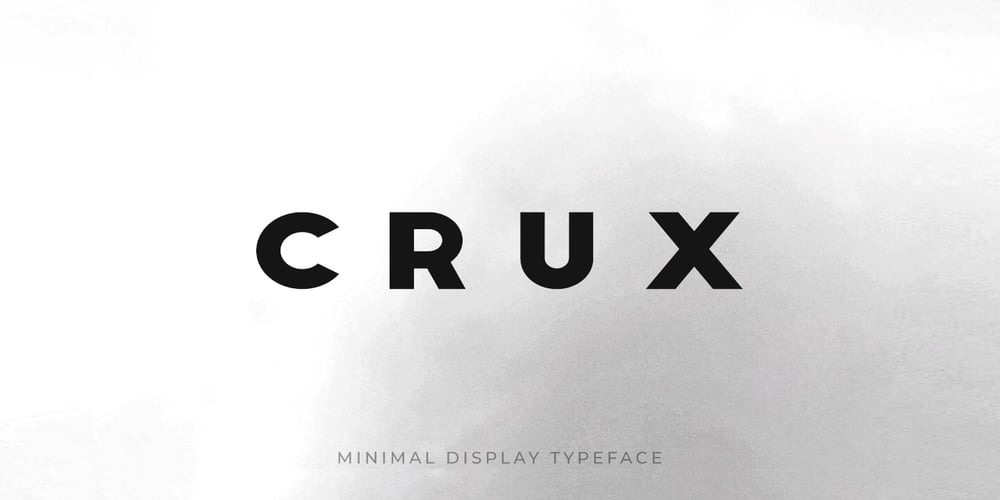
Crux Display Font Family was designed by Jean Johnson and published by Designova. Crux Display contains 2 styles and family package options. CRUX is a modern typeface for minimalist headlines, big text, branding, logotypes & display usage. This font is perfect for creating outstanding logos, promotional content and marketing graphics that can grab your clients’ attention. Please see the examples shown above to get an idea about the capability of this typeface.